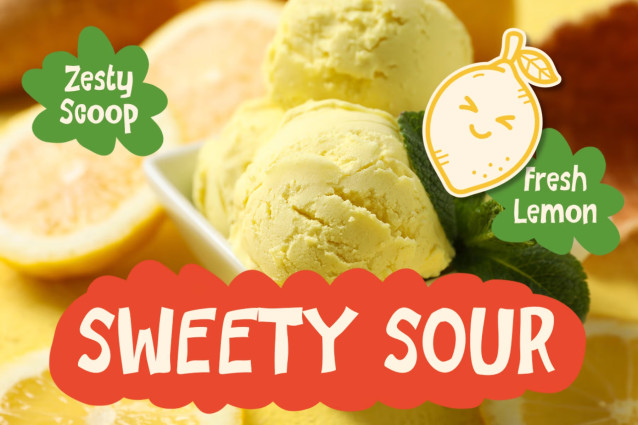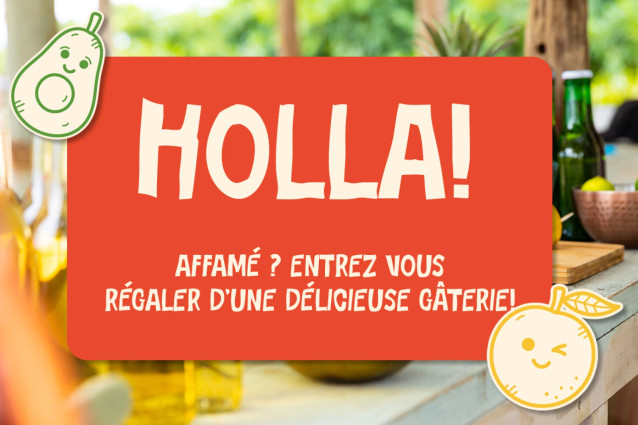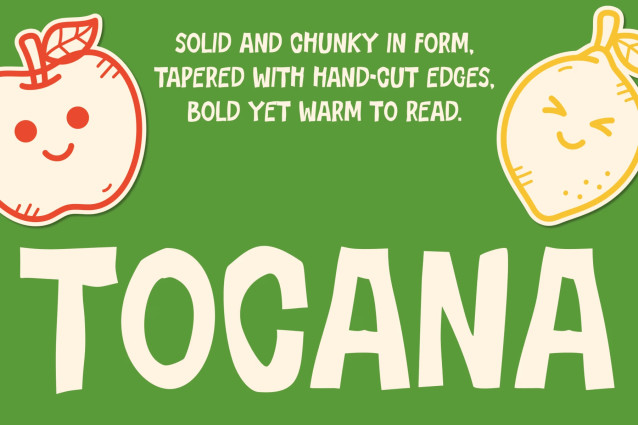
TOCANA – Juicy, Chunky & Playful Kids Font
Kids Font TOCANA is a bold and cheerful display font with a fresh, chunky style. With its rounded shapes and hand-cut edges, it creates a warm and friendly look. Moreover, the soft letterforms give every word a playful personality. At the same time, TOCANA stays bold and easy to read. Therefore, it works perfectly for eye-catching titles and display designs. In addition, its fun aesthetic makes creative projects feel fresh and lively.
Perfect For
Whether you design kids’ products or playful brands, TOCANA adds instant charm. Furthermore, it works beautifully for food packaging, juice labels, fruit branding, and children’s books. Additionally, you can use it for posters, logos, stickers, T-shirts, menus, and social media graphics. Because of its chunky appearance, TOCANA also looks fantastic on merchandise. As a result, designers, illustrators, small businesses, and creative brands can use it across many projects.